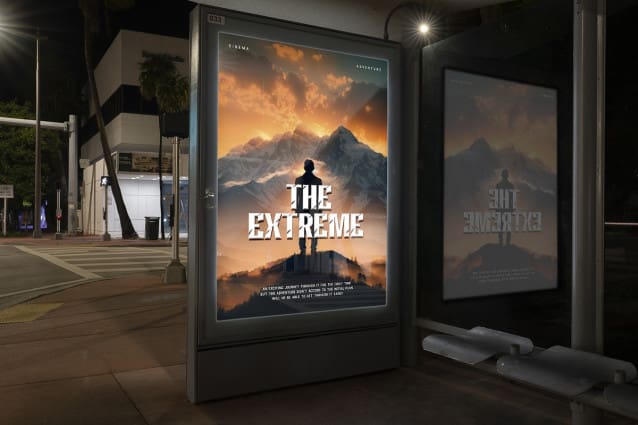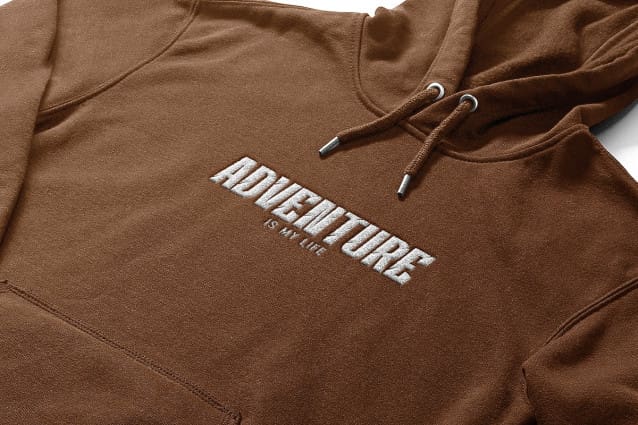
Surviva Font
Surviva Font, a display font designed to make a powerful statement in every design. With its strong lines and impactful presence, Surviva commands attention and ensures your message is heard loud and clear.
Crafted with precision and style, Surviva Font is perfect for headlines, posters, logos, and any design project that demands bold typography. Its robust character set includes uppercase letters, numbers, and punctuation marks, offering versatility and flexibility for all your creative needs.
Whether you’re creating advertising materials, event signage, or branding collateral, Surviva adds a touch of boldness and confidence to your designs. Stand out boldly with every letter and make a lasting impression with Surviva.